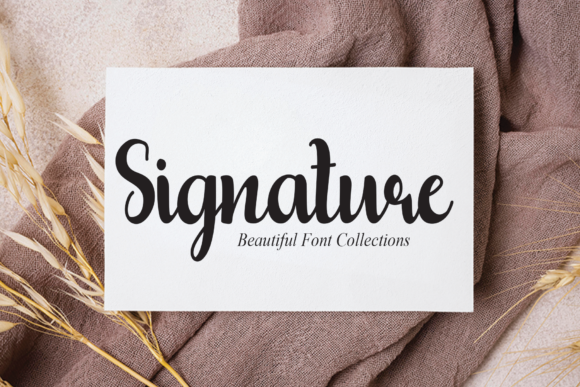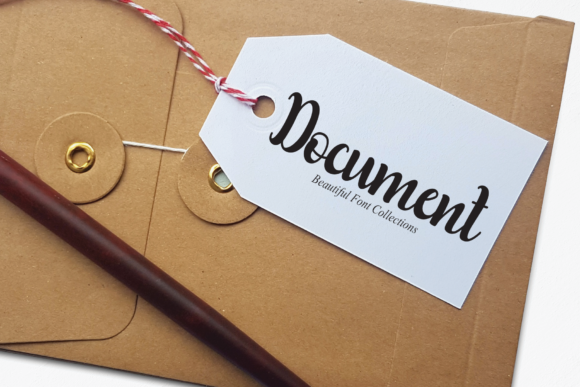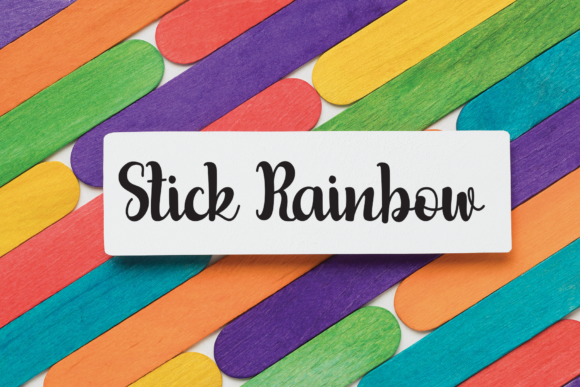
Married Font
About Married Font
Married font exudes sophistication with its elegant script font, infused with a contemporary flair and impeccable form. Balancing delicacy and boldness, this font offers a diverse and well-rounded appearance, meticulously crafted to elevate the beauty of your projects with its versatility and refined aesthetic.
Crafted with precision and attention to detail, Married font embodies modern elegance through its graceful letterforms and balanced strokes. Its contemporary feel injects a sense of freshness and style into every design, while its flawless form ensures readability and visual allure across a wide range of applications.
Versatility is a key feature of Married font, making it suitable for various design projects. Whether employed for branding, advertising, invitations, or packaging, this font adds a touch of sophistication and professionalism to each application.
The moderate weight of Married font strikes the perfect balance, ensuring adaptability and versatility across different design styles and aesthetics. Its well-balanced approach imbues your projects with depth and character without overpowering them.
Whether used for digital or print media, Married font enhances the allure of your creations with its elegant script style. Its refined appearance brings a sense of sophistication and charm to logos, headlines, and promotional materials, allowing your brand to make a memorable impact with timeless elegance.
In summary, Married font epitomizes contemporary chic and timeless elegance. With its flawless form, balanced weight, and varied design elements, it enriches the visual appeal of any project, leaving a lasting impression on viewers and enhancing the beauty of your designs with effortless sophistication.